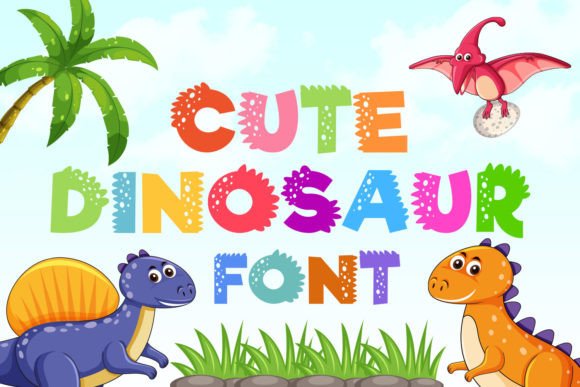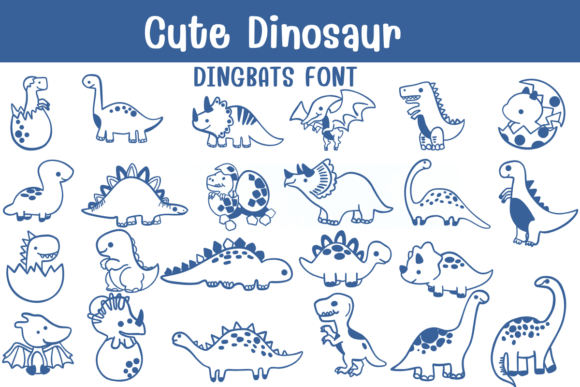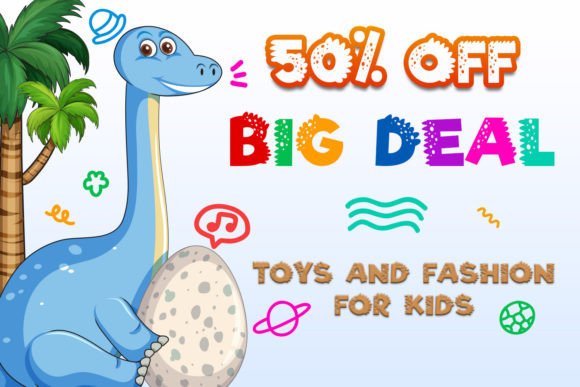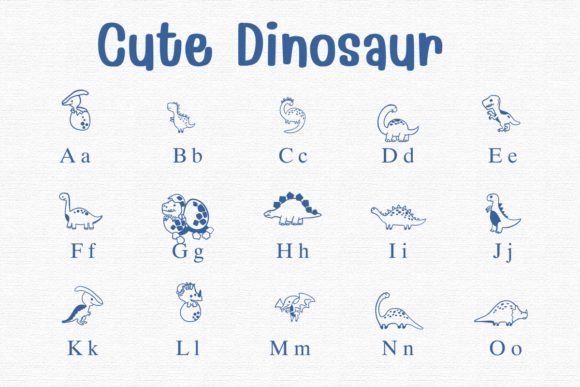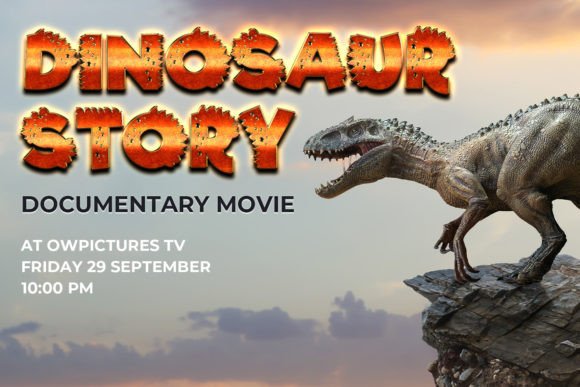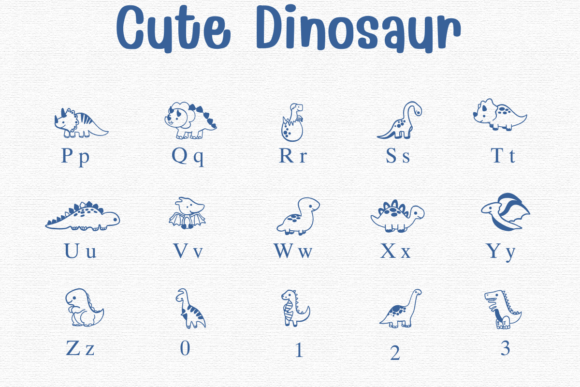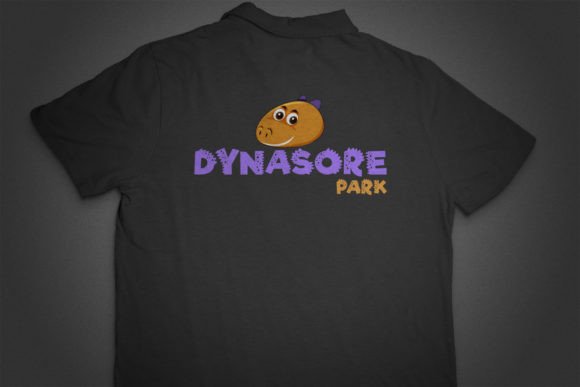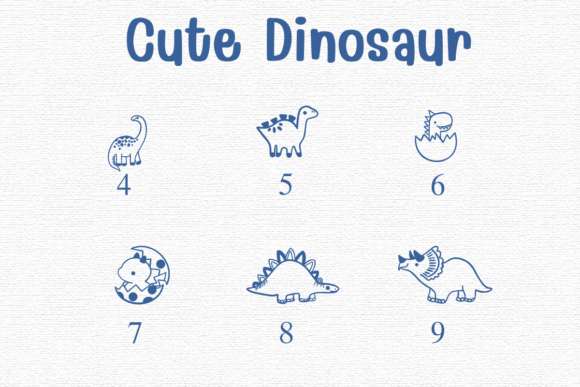
Cute Dinosaur Font
About the Cute Dinosaur Font
Crafted with precision, the Cute Dinosaur Font is ready to bring your ideas to life. Cute Dinosaur is an adventure-themed decorative font with dinosaur elements. It’s the perfect choice for kids’ activities or school projects. Use it to add a fun and exciting feel to any design project.
Cute Dinosaur excels in headlines, short slogans, and playful branding for children’s products or educational materials. Its whimsical style also works well on posters, invitations, and packaging for themed events or kids’ parties. However, avoid using it for body text or long paragraphs; its decorative nature compromises readability in extended use.
The font’s personality is undeniably fun and friendly. Pairing it with a clean sans-serif like Open Sans for body copy creates a balanced, approachable design. For a more sophisticated feel, consider a classic serif like Garamond or a slightly more playful script like Pacifico to complement its adventurous theme.
This font’s strong visual character makes it unsuitable for UI design or projects requiring high readability. Its charm lies in its unique illustrative quality, making it ideal for projects that prioritize visual impact over extensive textual content.
Cute Dinosaur Font Usage Examples
Cute Dinosaur Font Example